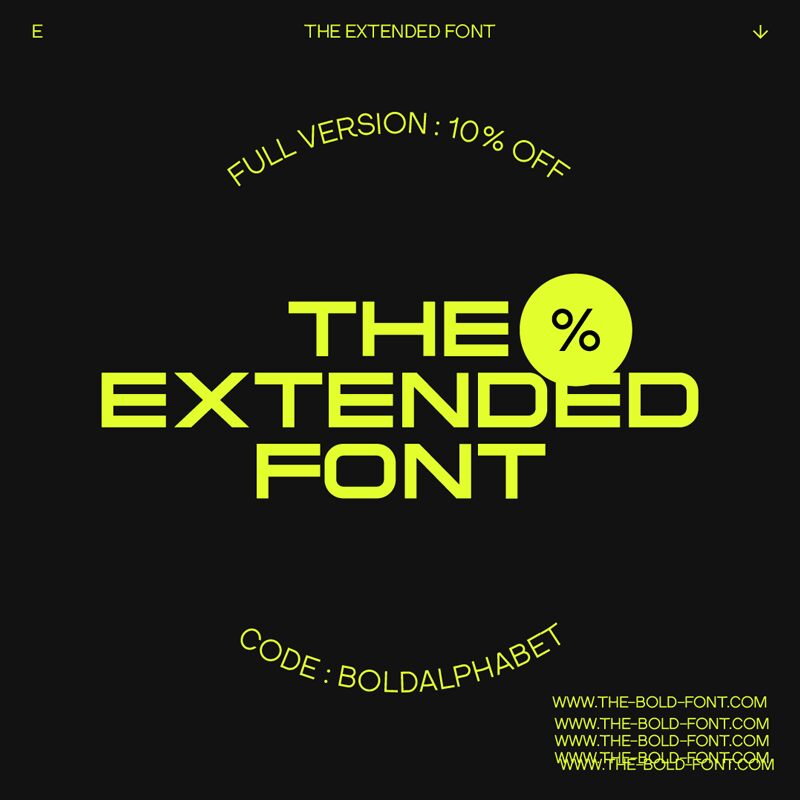
The extended font, created by Sven Pels, is a free sans serif font that shines with geometric shapes and minimalistic forms. The font features clean-cut lines and bold well-structured characters. It’s a contemporary visual masterpiece that makes an outstanding choice of text when the focus is on simplicity, clear readability, and elegance.
Use this handwritten font in posters, greeting cards designs, event invitations, branding presentations, social media content designs among multiple other projects where it best fits. The typeface is completely free in terms of use.